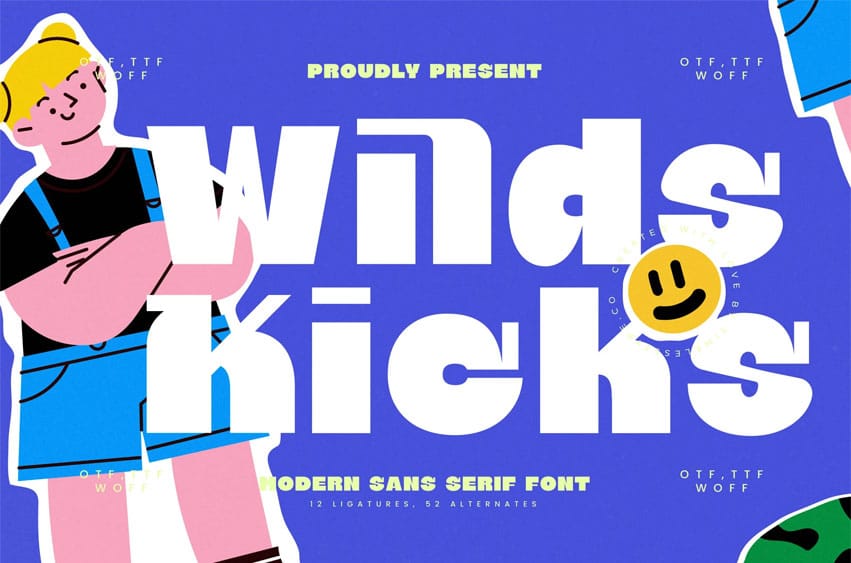
Wilds Kicks Font is suitable to complement your digital and printed creative products.
This font is ideal for posters, social media posts, branding, personal projects, and more.